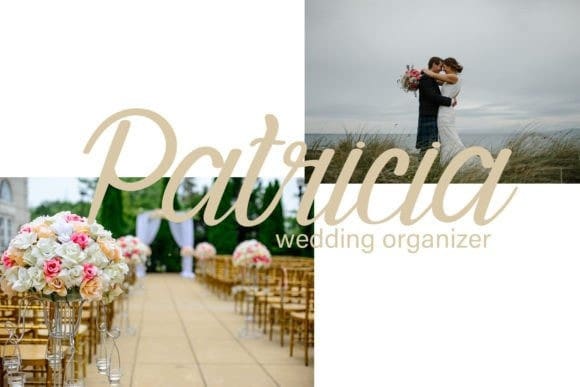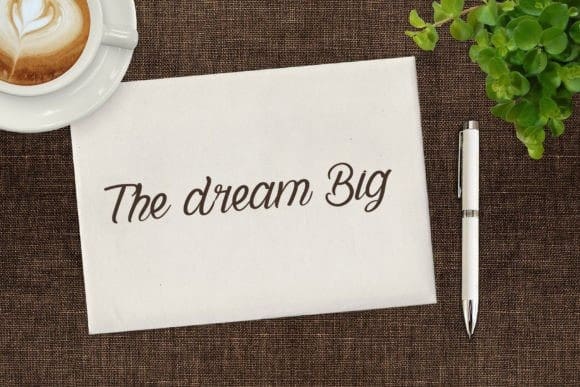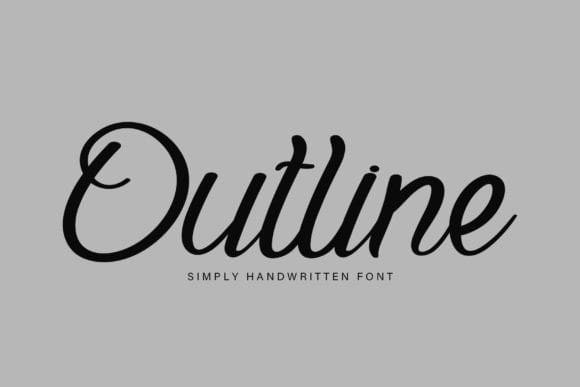
Outline Script Typeface
Outline Script Typeface is a neat and beautiful handwritten font described by an elegant touch, perfect for your favorite projects. Fall in love with its incredibly distinct and timeless style, and use it to create spectacular designs!